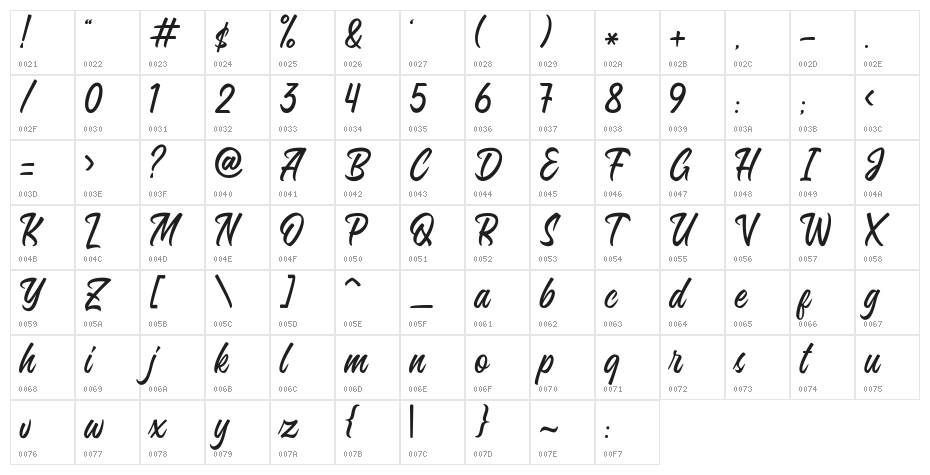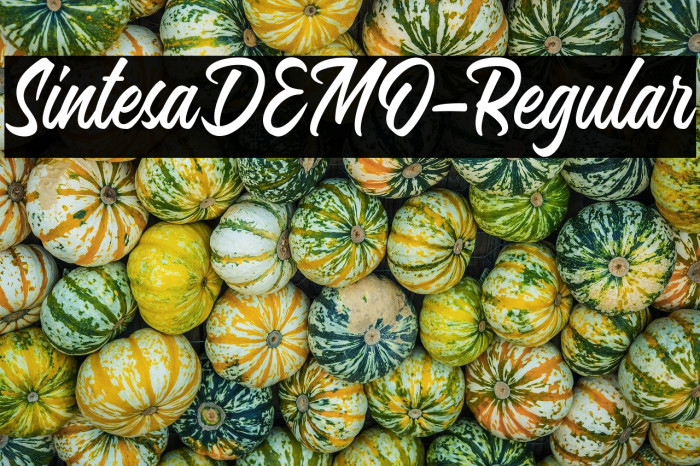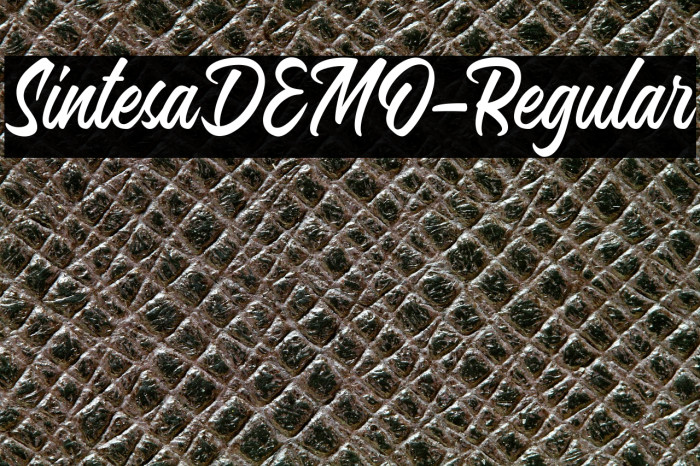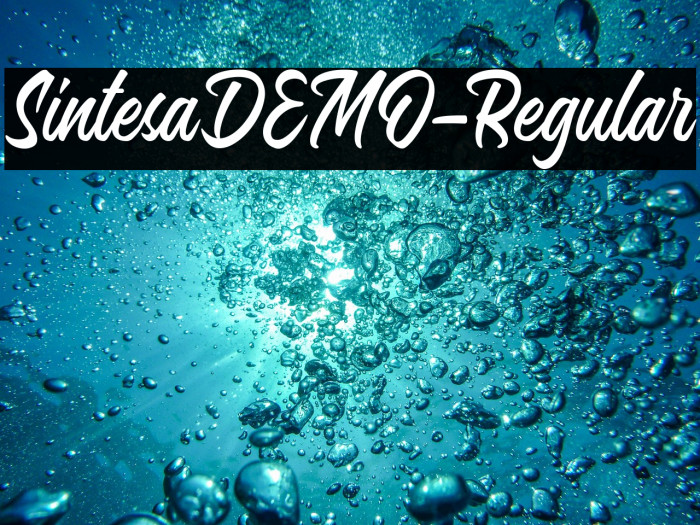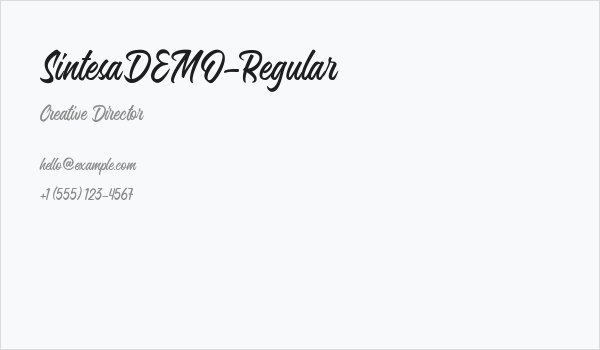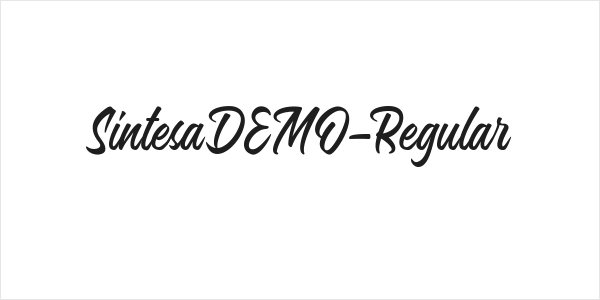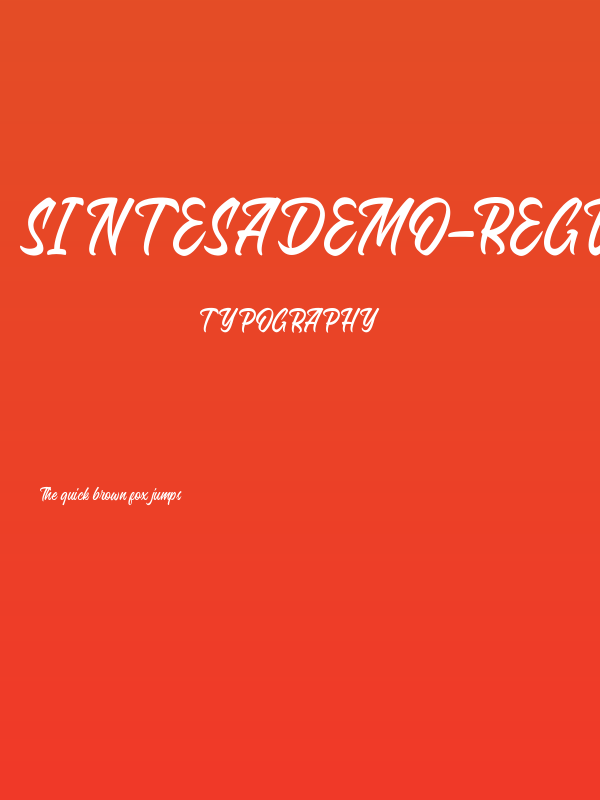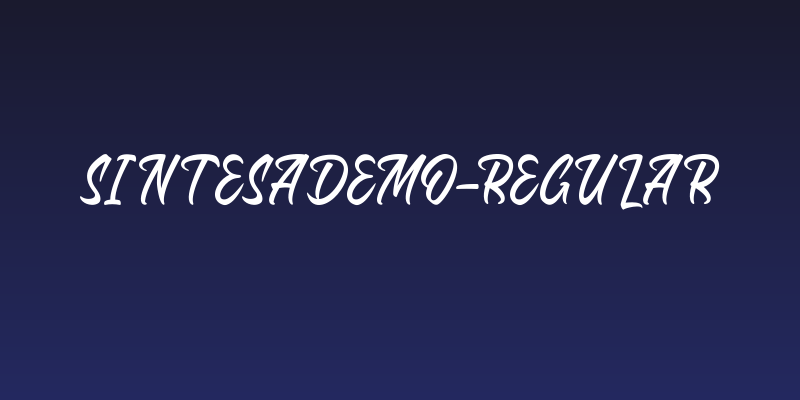
SintesaDEMO-Regular Font
SintesaDEMO-Regular Description
This font features a dynamic and flowing script style, characterized by its smooth, cursive strokes and elegant curves. The uppercase letters are bold and slightly slanted, giving a sense of movement and grace. Lowercase letters maintain a consistent flow, with some letters extending below the baseline, adding to the font's fluidity. Numbers are well-proportioned and maintain the same cursive style, ensuring consistency throughout. Special characters are designed to complement the overall aesthetic, with a playful yet sophisticated touch. This font is ideal for projects that require a personal and artistic flair.